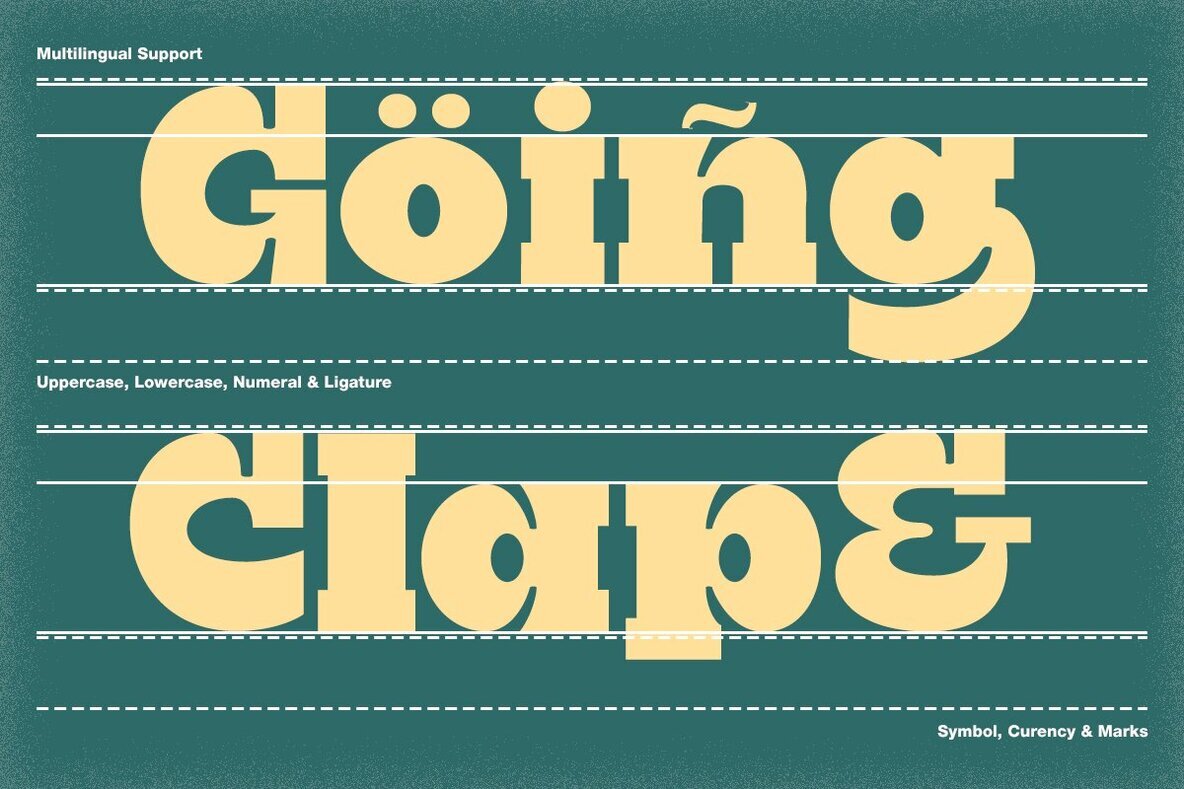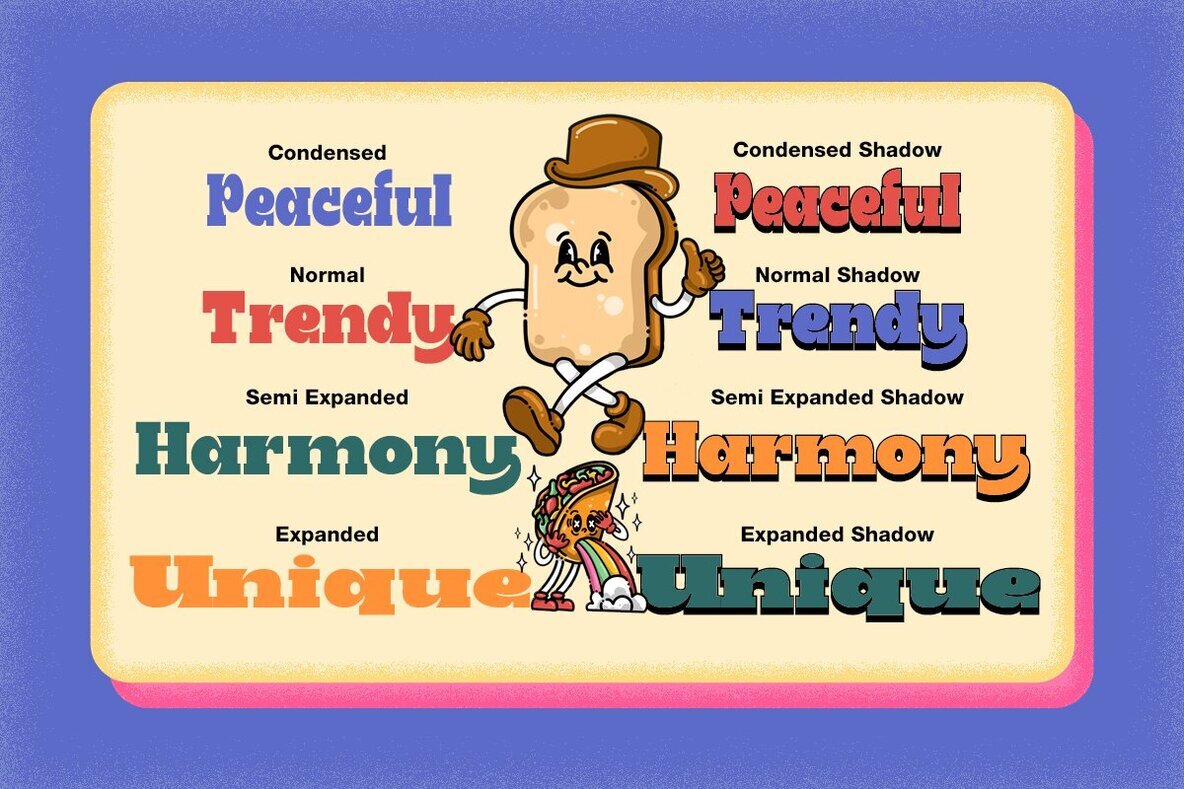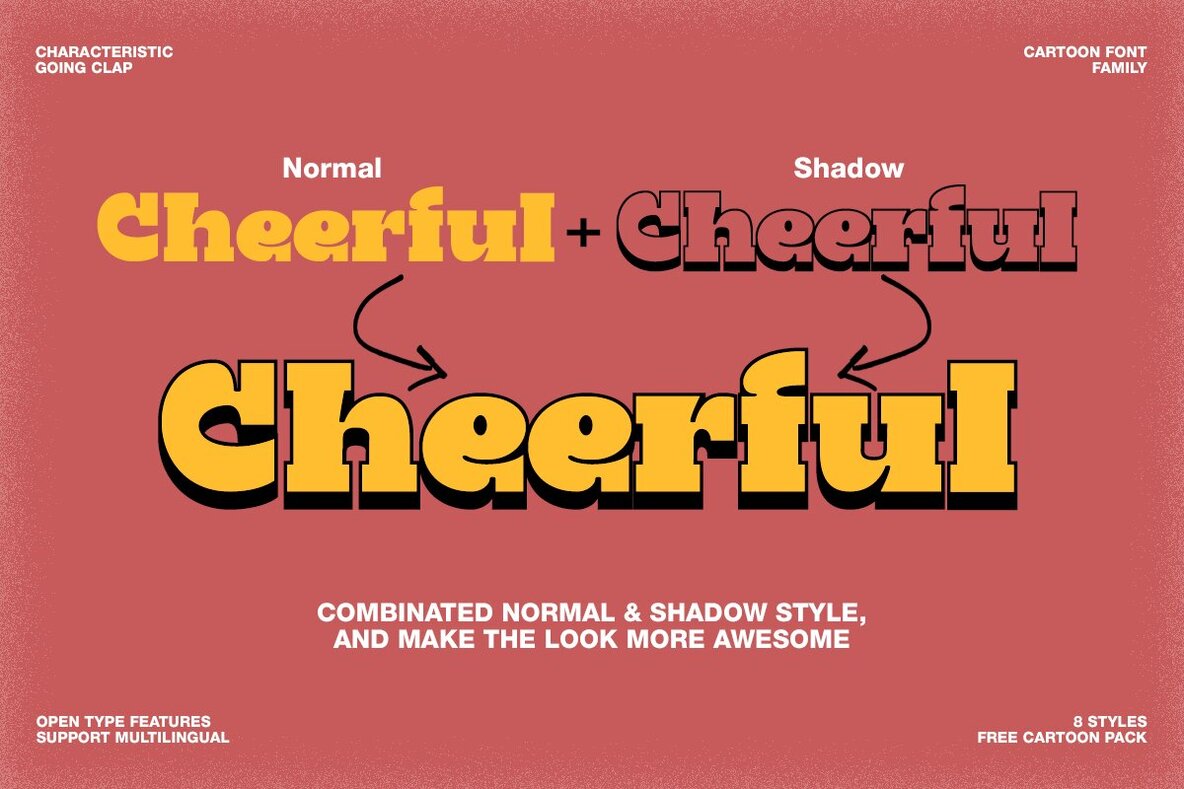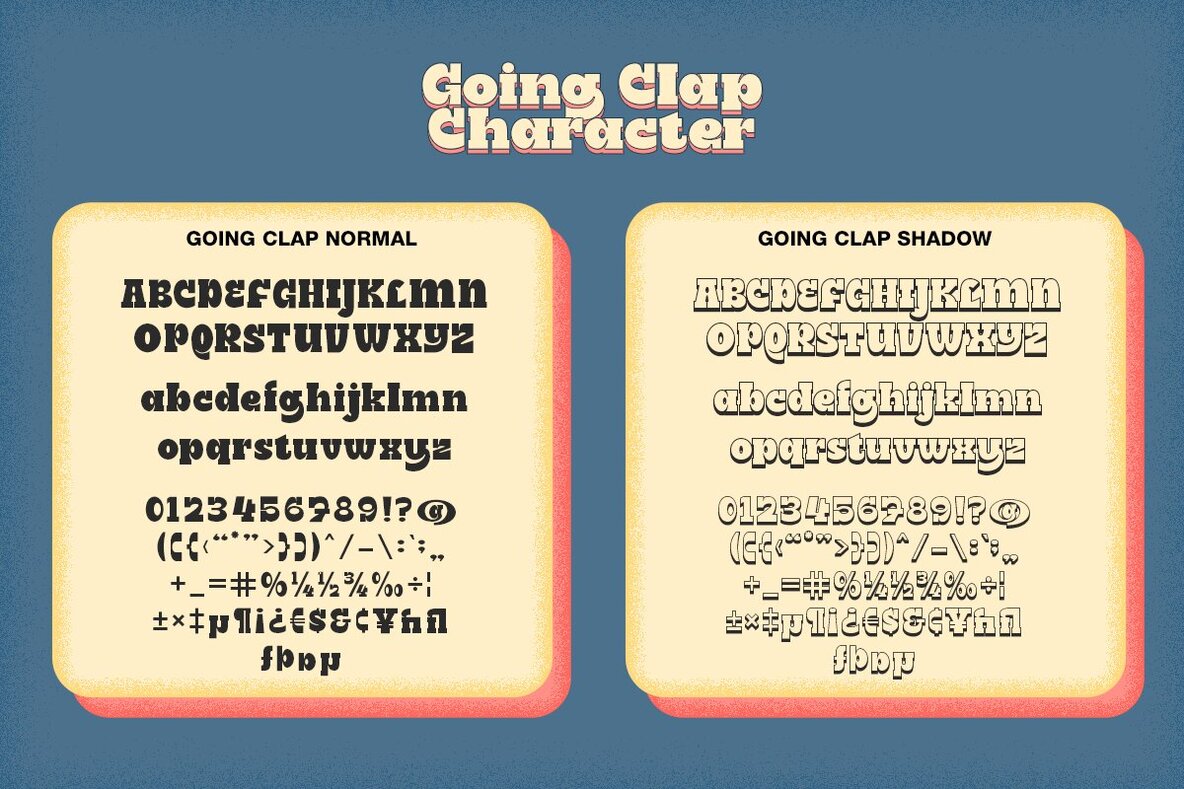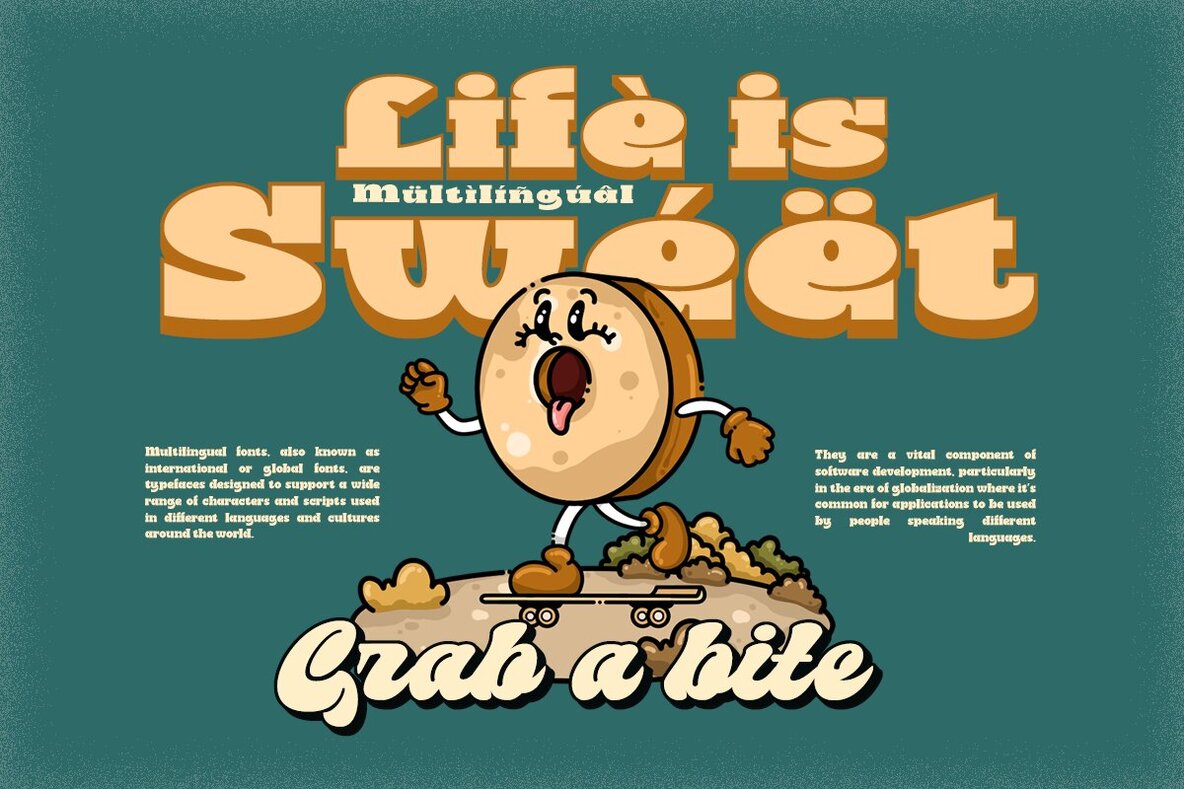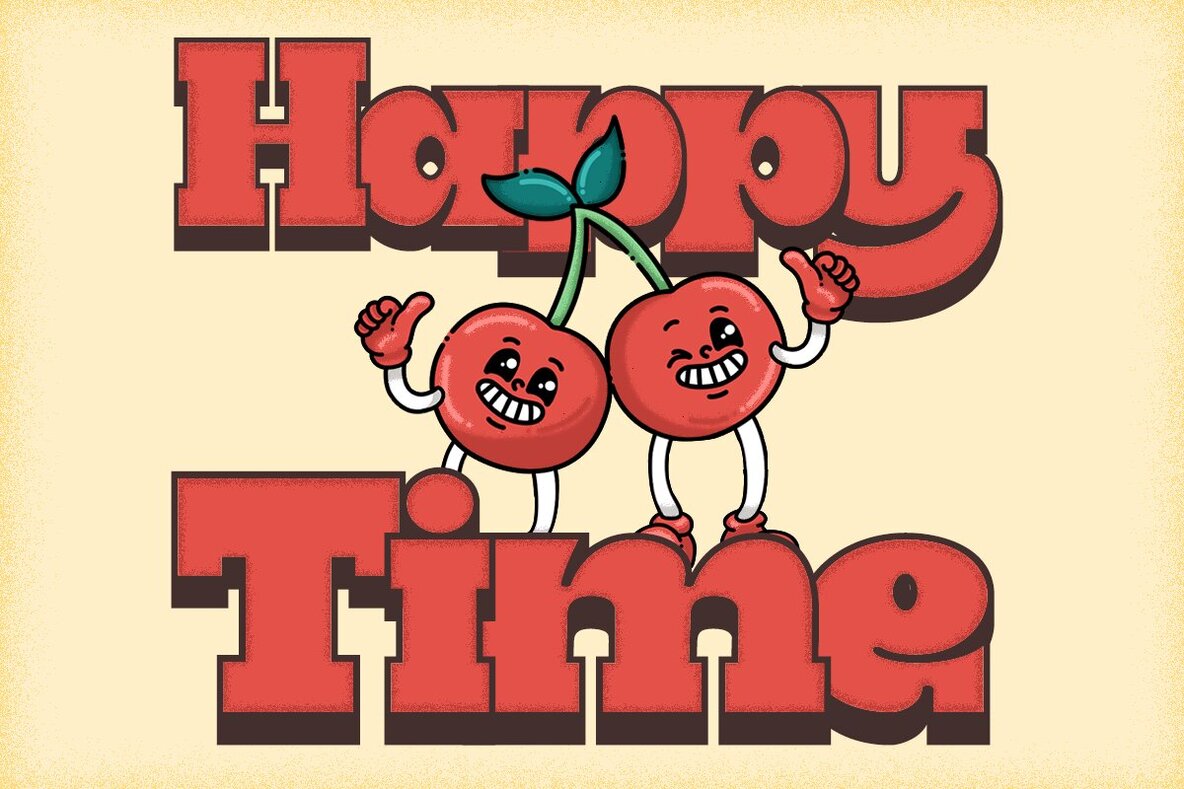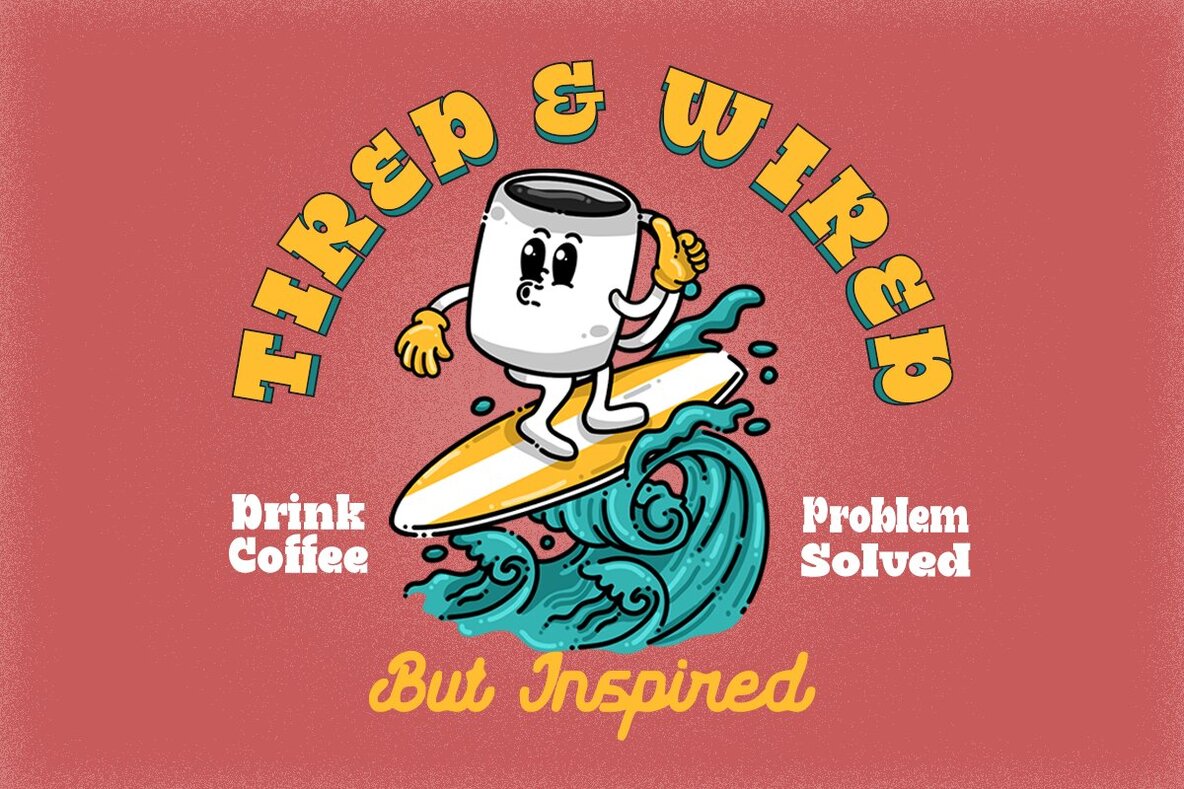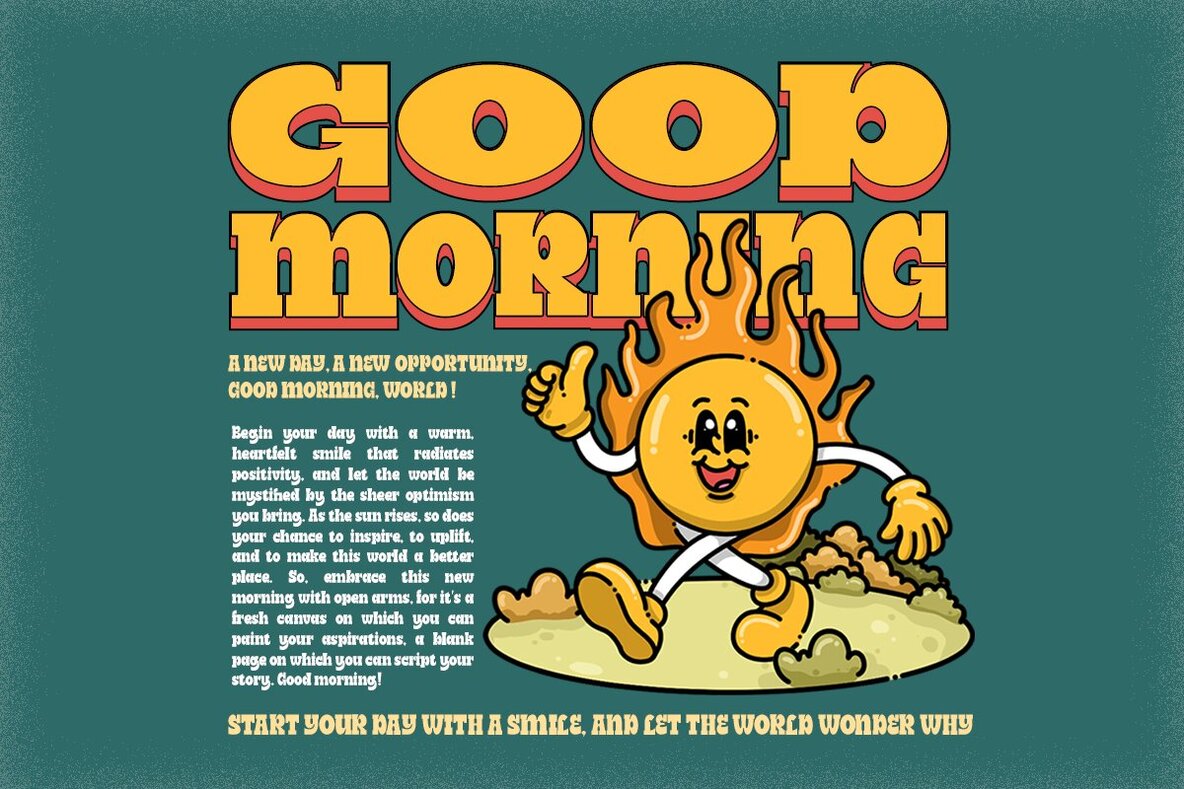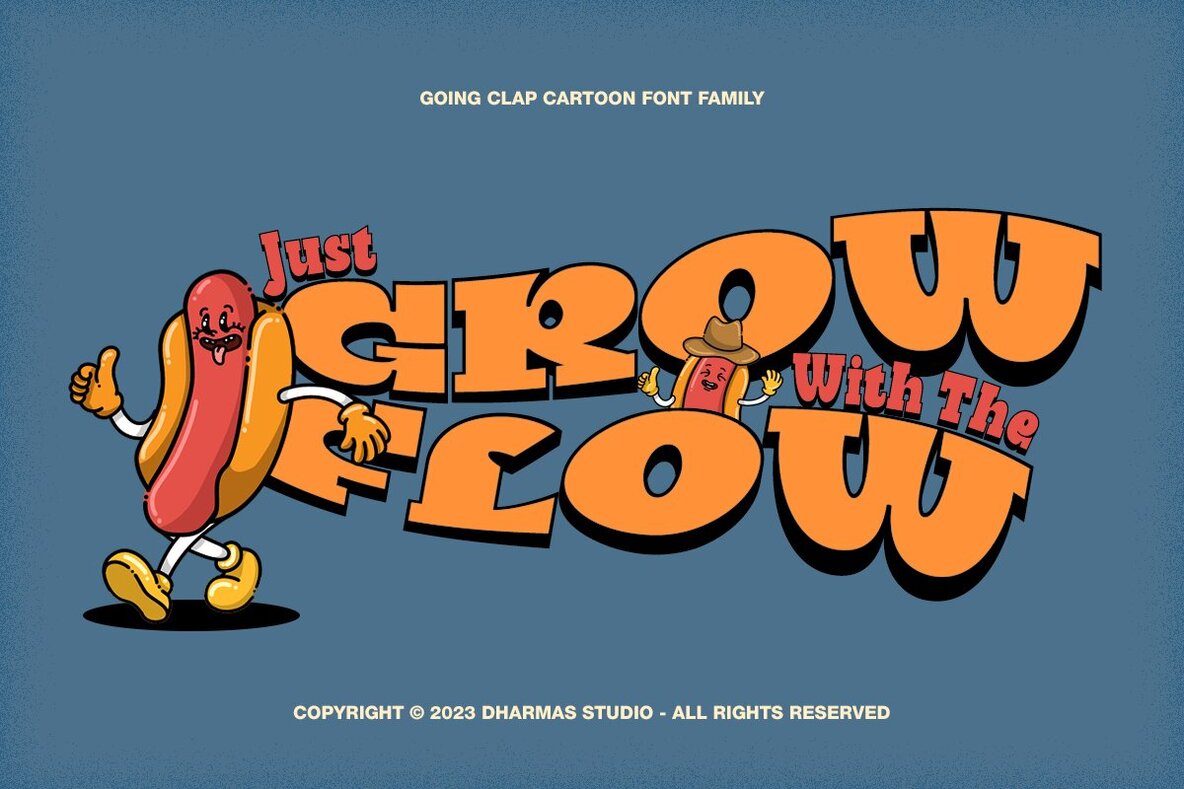
Going Clap Font
Introducing Going Clap, the font that's all about bold and nostalgic vibes! This chunky slab serif typeface is your secret weapon for making text pop with artistic and vintage flair. With 8 unique font families, including Condensed, Normal, Semi Expanded, and their cool shadow versions, you'll find the perfect style for any project. But that's not all! When you choose Going Clap, you'll also get a fantastic bonus—56 retro mascot illustrations for that extra touch of character and nostalgia. What's included? Multilingual Supports: (Afrikaans, Albanian, Catalan, Croatian, Czech, Danish, Dutch, English, Estonian, Finnish, French, German, Hungarian, Icelandic, Italian, Lithuanian, Maltese, Norwegian, Polish, Portuguese, Slovenian, Spanish, Swedish, Turkish, Zulu)